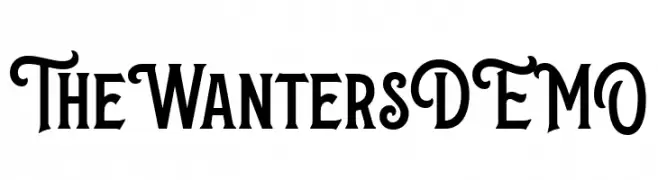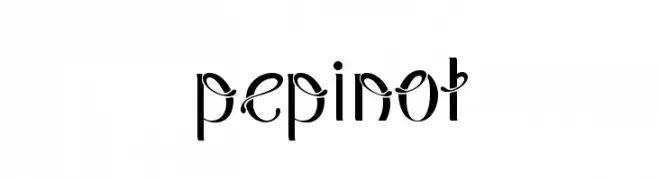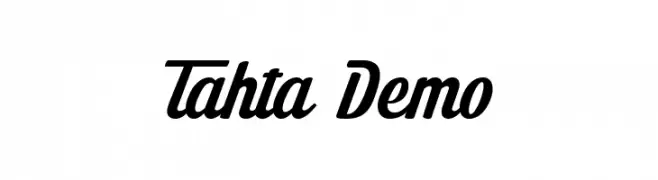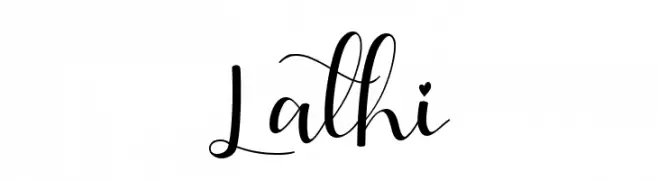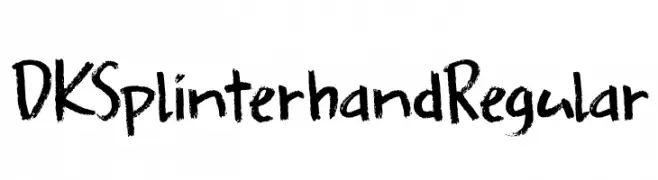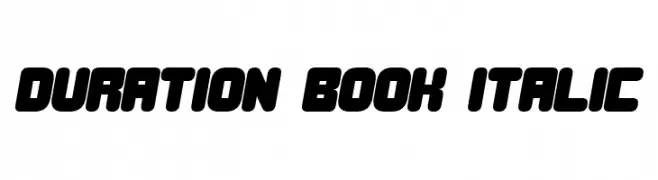
A bold, decorative font with elegant swirls and curves.
A decorative font with elegant swirls and loops, offering a modern and artistic style.
A bold, cursive font with a dynamic and elegant style.
An elegant, flowing script font with graceful loops and a sophisticated style.
A bold, hand-drawn font with a textured, artistic style.
A bold, rounded, and italic font with a modern, playful style.